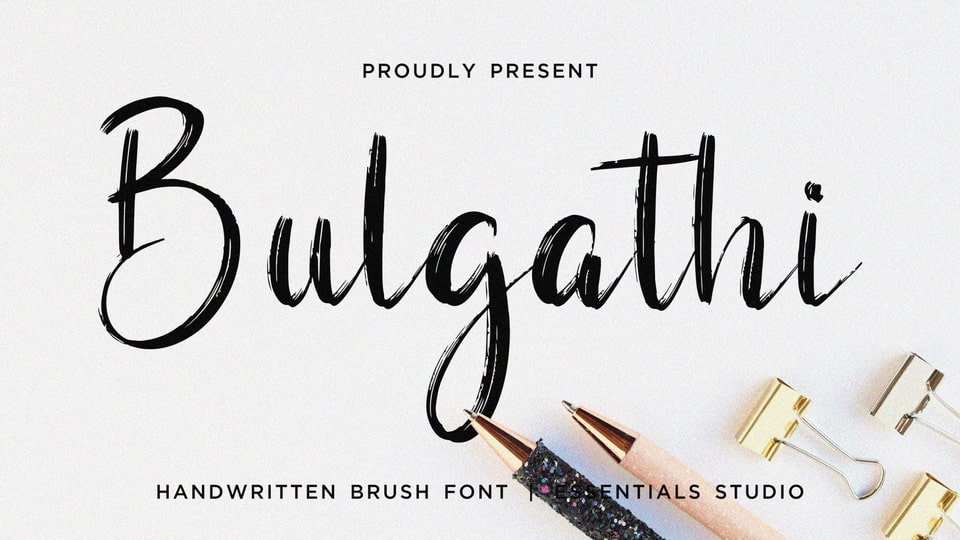
Download Bulgathi font, a modern brush hand painted script typeface. Bulgathi is perfect for product packaging, branding project, magazine, social media, wedding, or just used to express words above the background.
Designer: Essentials Studio